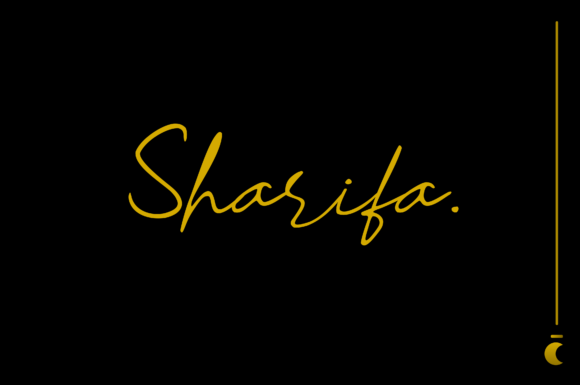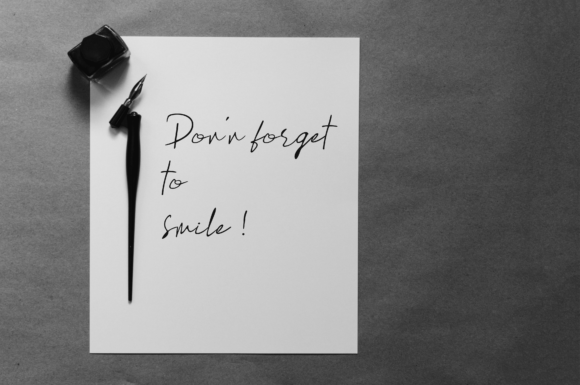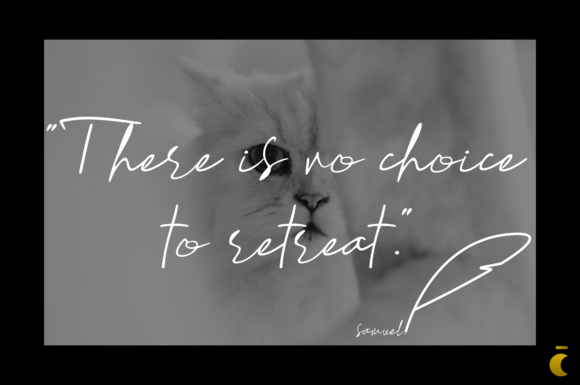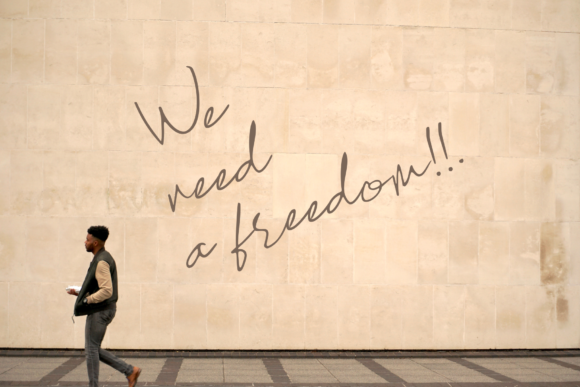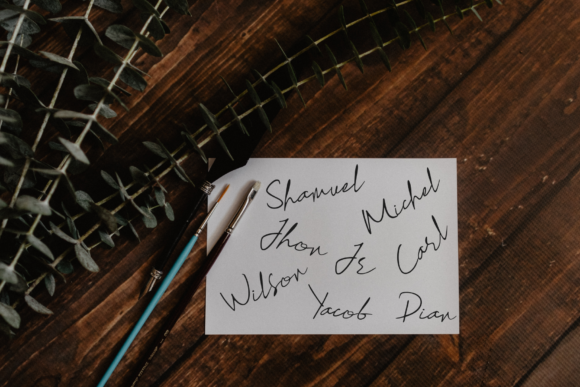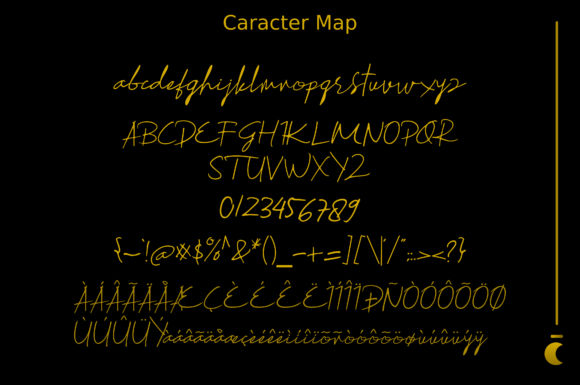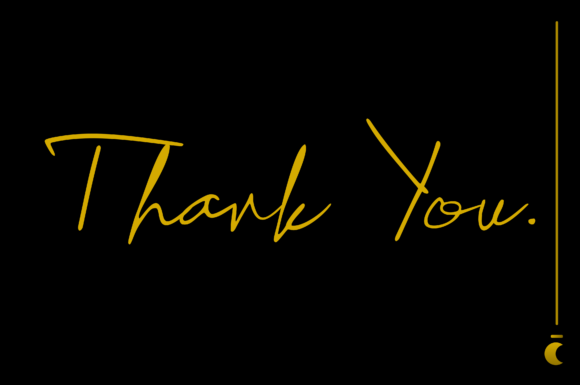
HomeScript FontsSharifa Font Script Fonts Sharifa Font FacebookXPinterestWhatsApp Sharifa Font Poster 2 Sharifa Font Poster 3 Sharifa Font Poster 4 Sharifa Font Poster 5 Sharifa Font Poster 6 Sharifa Font Poster 7 About Sharifa Font Sharifa is a stunning script font featuring incredibly authentic swashes. Fall in love with its romantic charm! DOWNLOAD ON CREATIVE FABRICAThis font is sold and delivered by Creative Fabrica. Font Canyon may earn a commission if you buy through this link. People also explored Nachel Victoria Font Inhumans Font Mountain Font Guardilostra Font GoodByeMom Font School Font Maltone Font Rainbow Cake Font You Are Awesome Font 305 0 TagsSharifa Font Previous articleEmbroider FontNext articleGlodyla Font LEAVE A REPLY Cancel reply Comment: Please enter your comment! Name:* Please enter your name here Email:* You have entered an incorrect email address! Please enter your email address here Website: Save my name, email, and website in this browser for the next time I comment. Personal Use Free Euphorigenic Personal Use Free Read more about this font GoodFay Personal Use Free Read more about this font Colourbars Personal Use Free Read more about this font Love Baby Personal Use Free Read more about this font BLOG The 10 Best Handwriting Fonts to Add Personality to Your Designs 10 of the Best Handwriting Fonts for Adding Personality to Your Designs There will undoubtedly be no other better choice than handwriting fonts to give... Exploring Font Trends Best Fonts for YouTube Videos: Make Your Thumbnails Stand Out Elegant Wedding Invitation Fonts – Handwritten & Script Fonts